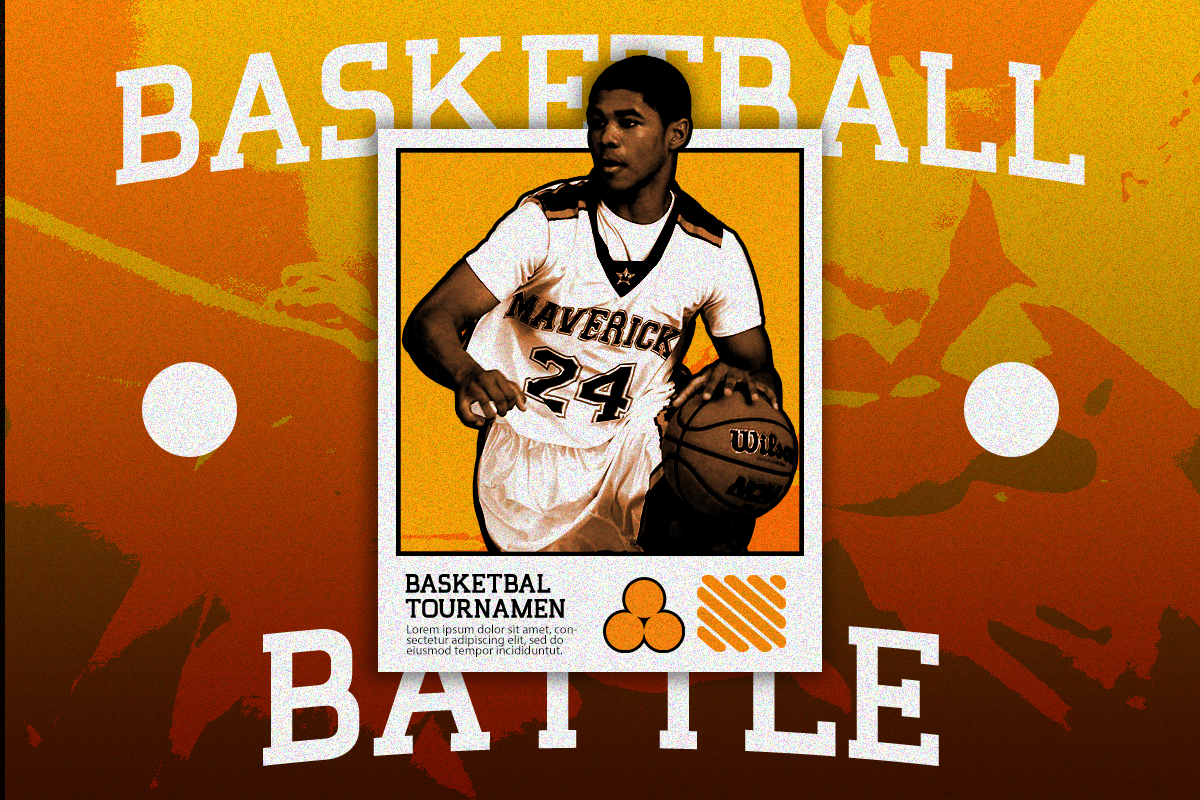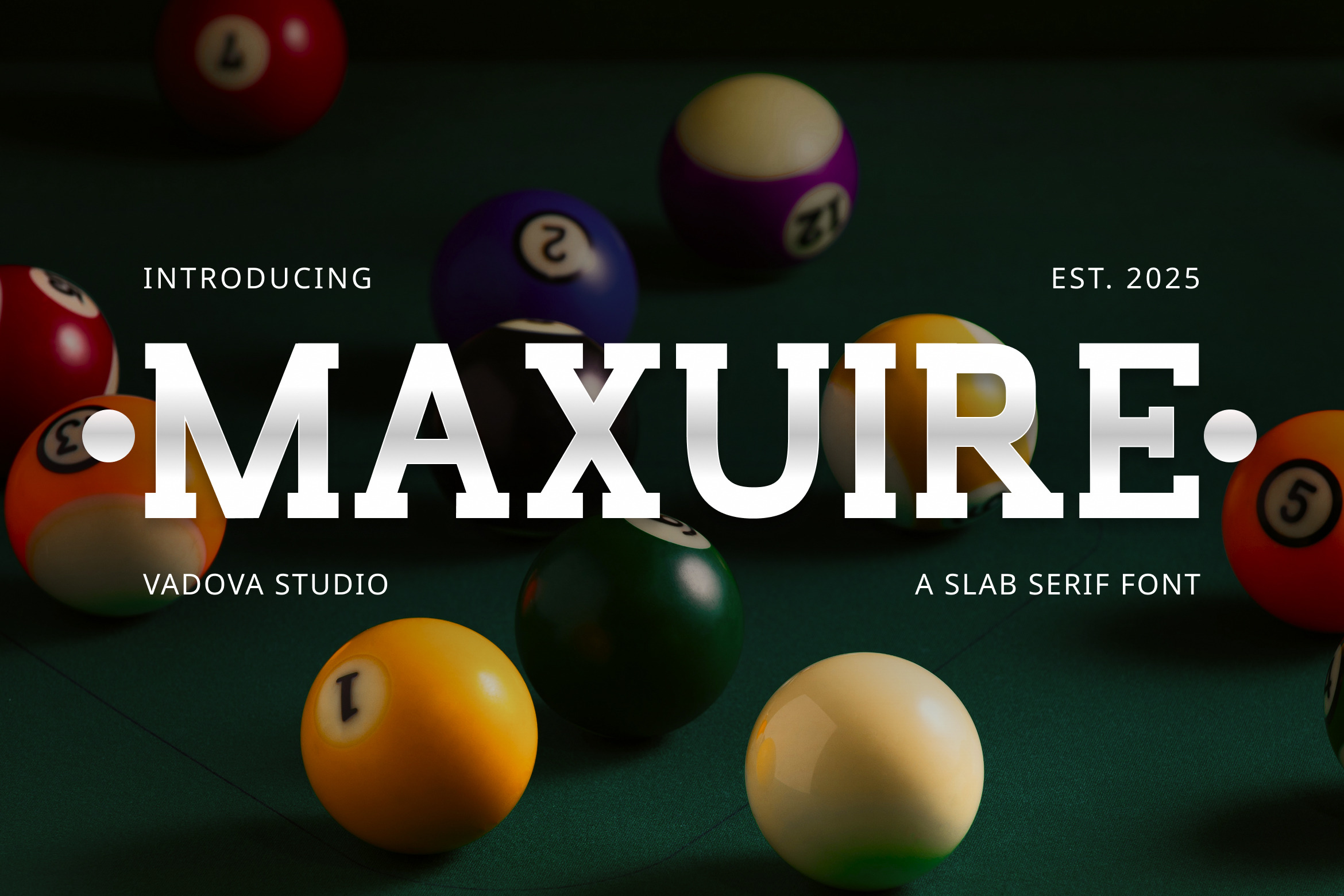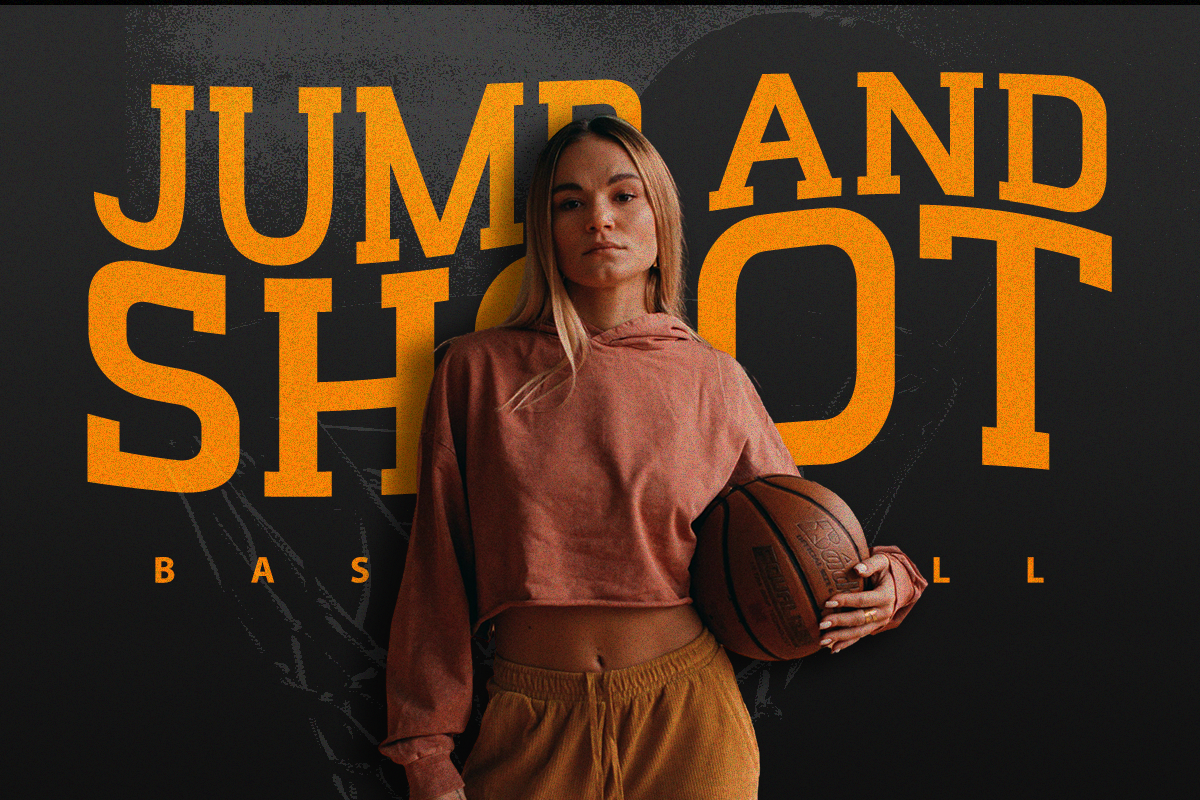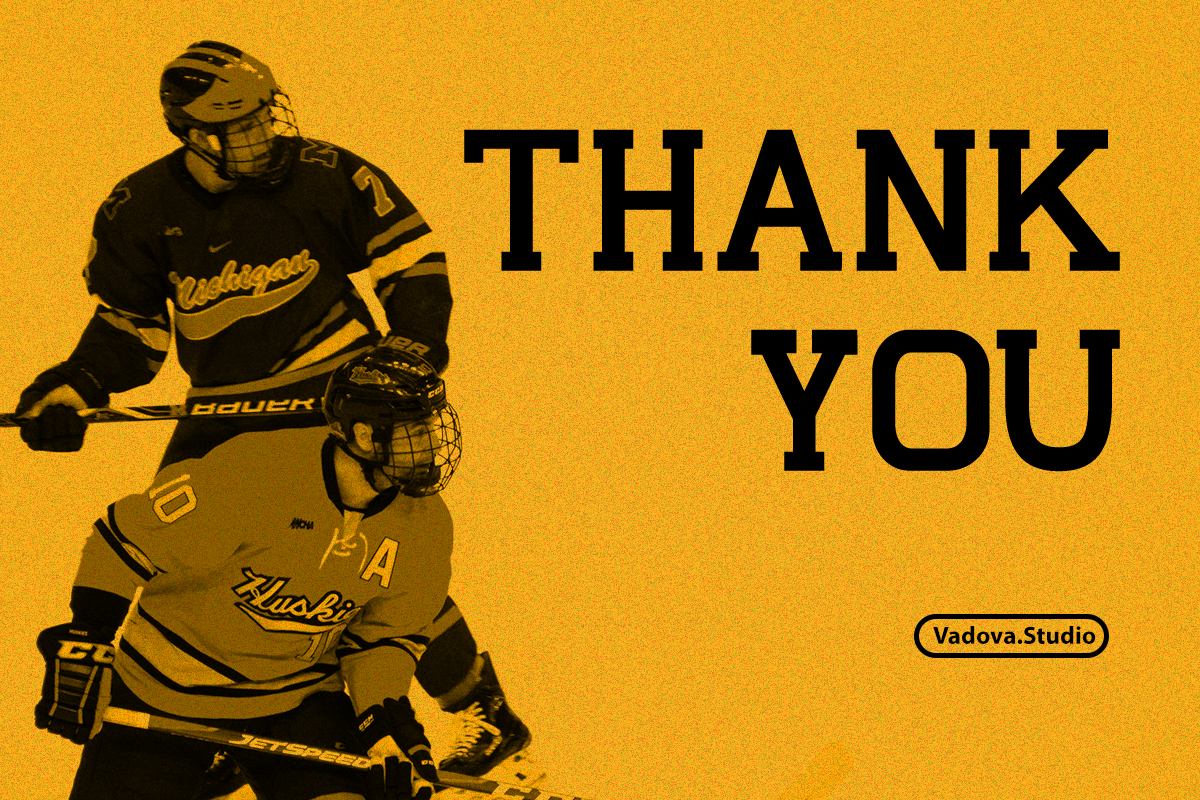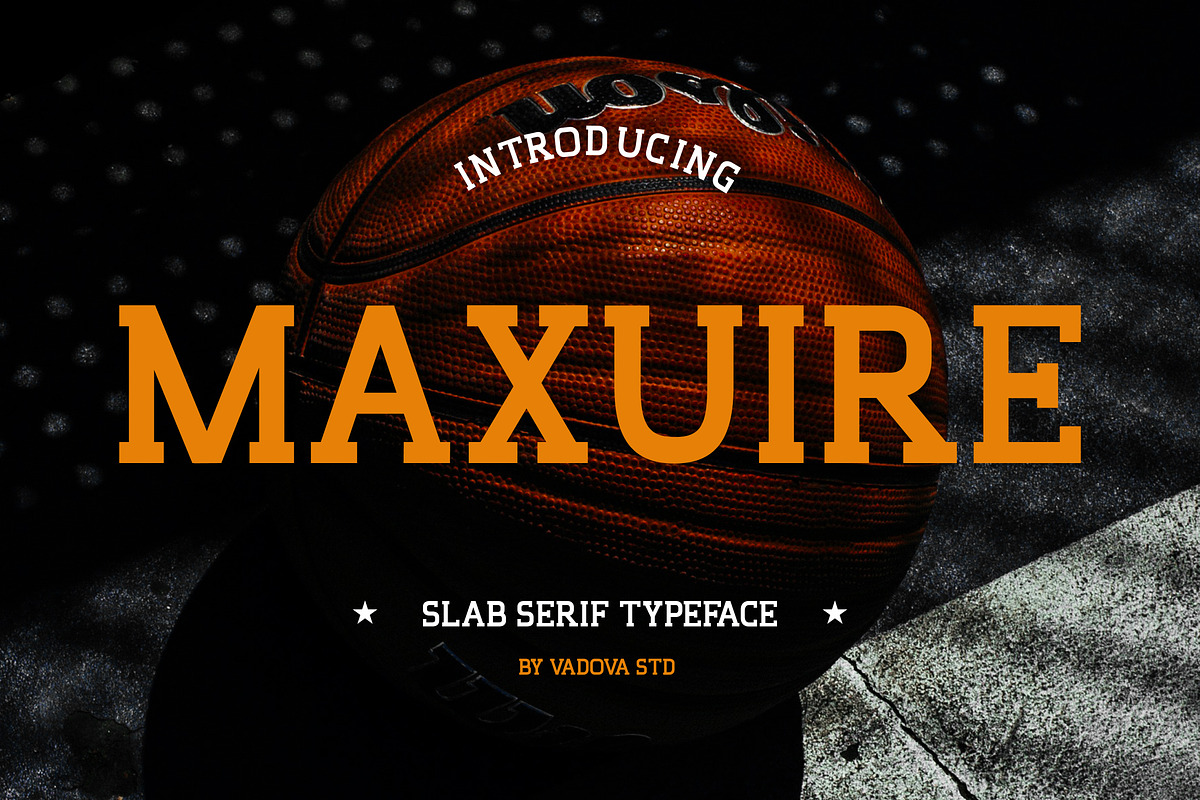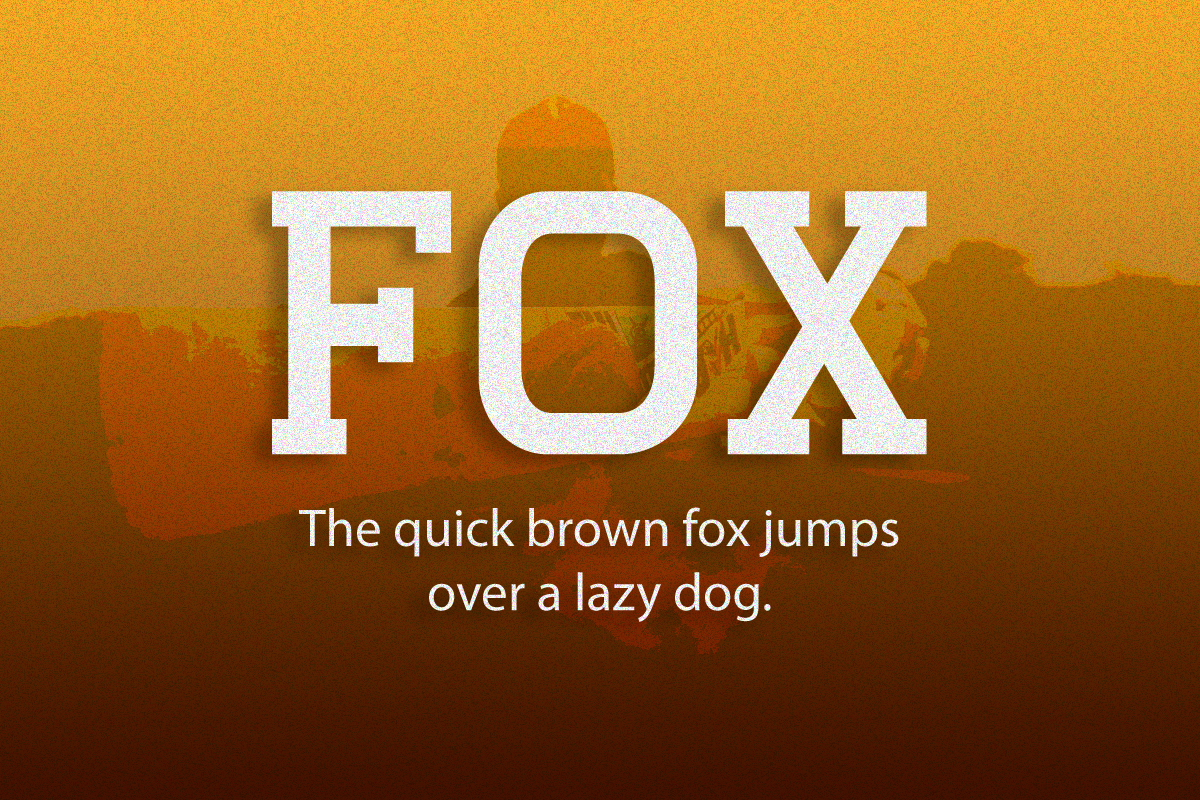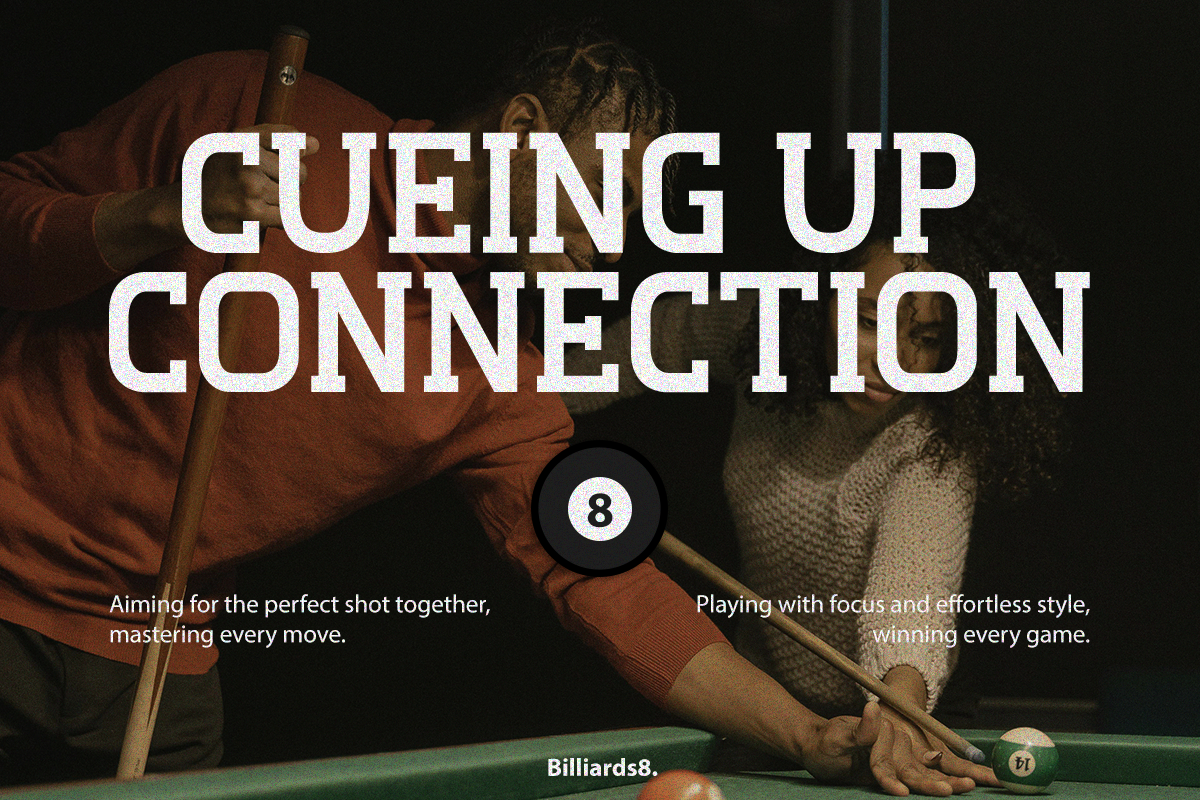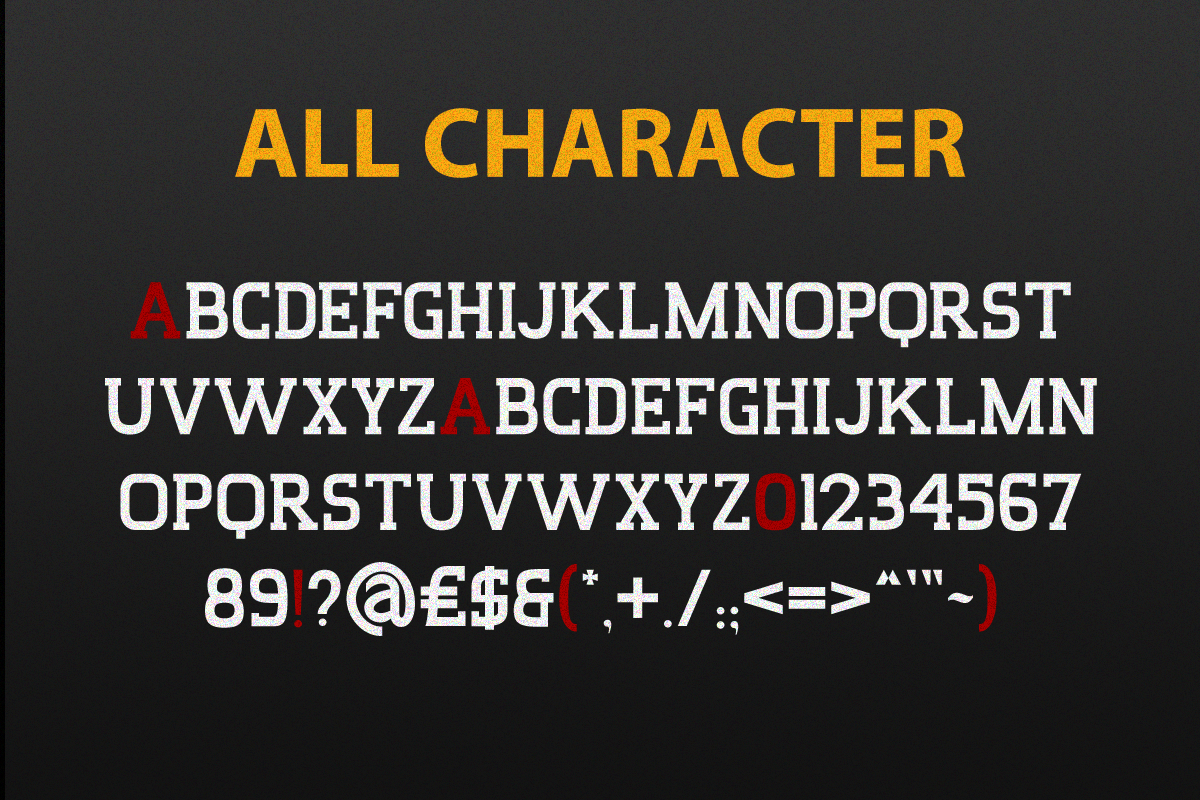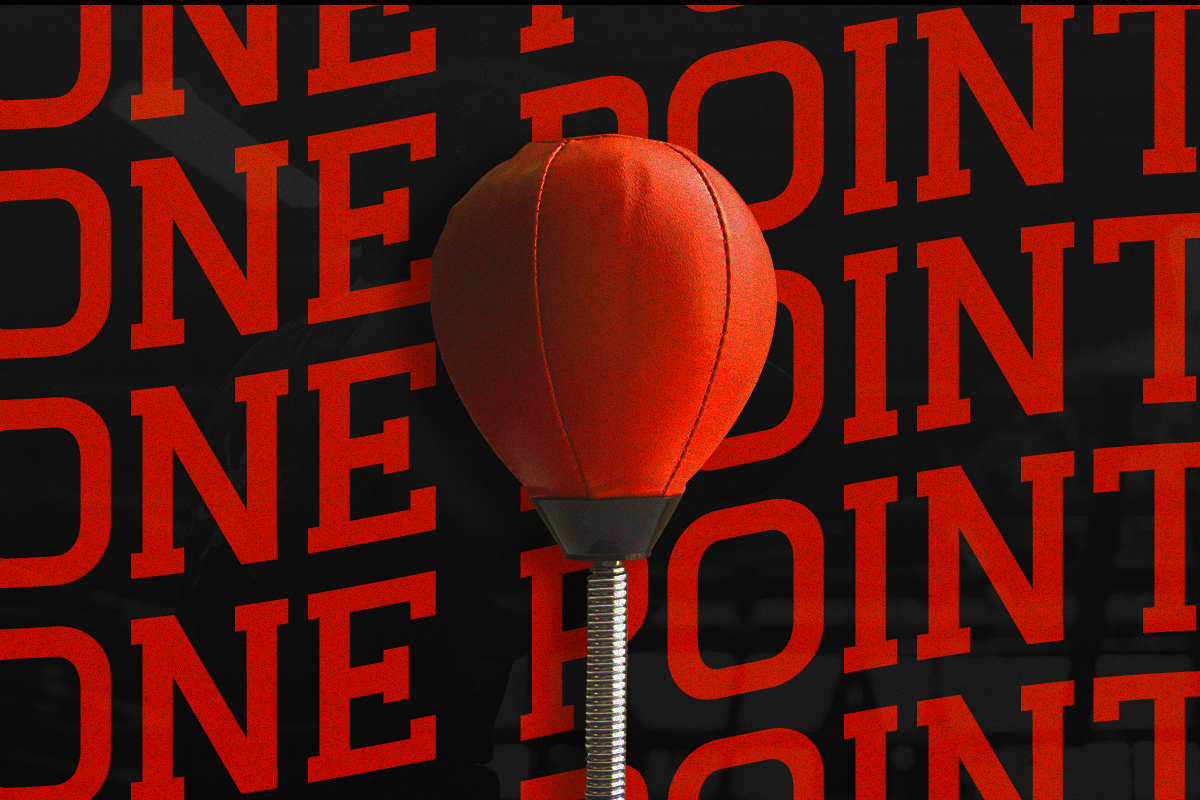
Maxuire – Slab Serif Font
Maxuire is a powerful slab serif typeface that blends industrial strength with timeless sophistication. Featuring firm serifs and solid letter structures, it evokes a confident, athletic, and editorial appeal. Designed with balanced proportions and clean edges, Maxuire delivers visual authority while maintaining excellent readability.
Perfect for headlines, sports branding, editorial covers, and signage, this font stands as a versatile choice for designers who value bold character and professional stability.
Font Highlights
Strong slab serif design
Uppercase & lowercase characters
Numerals and punctuation included
Consistent weight with geometric precision
Ideal for branding, headlines, and editorial compositions
Why Designers Love Maxuire
Timeless Strength – Combines classic slab serif charm with modern sharpness.
Versatile Personality – Perfect balance between professional and vintage.
Powerful Impact – Works beautifully in large display settings and signage.
Editorial Clarity – Highly legible with distinctive slab shapes.
Relevance and Use Cases is perfect for sports branding, bold logos, editorial titles, packaging, posters, apparel design, and classic identity projects needing a powerful and grounded aesthetic.